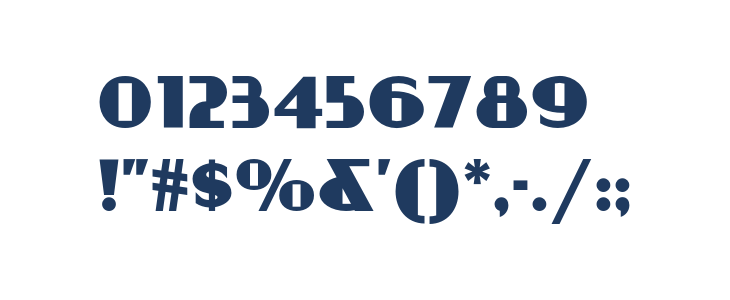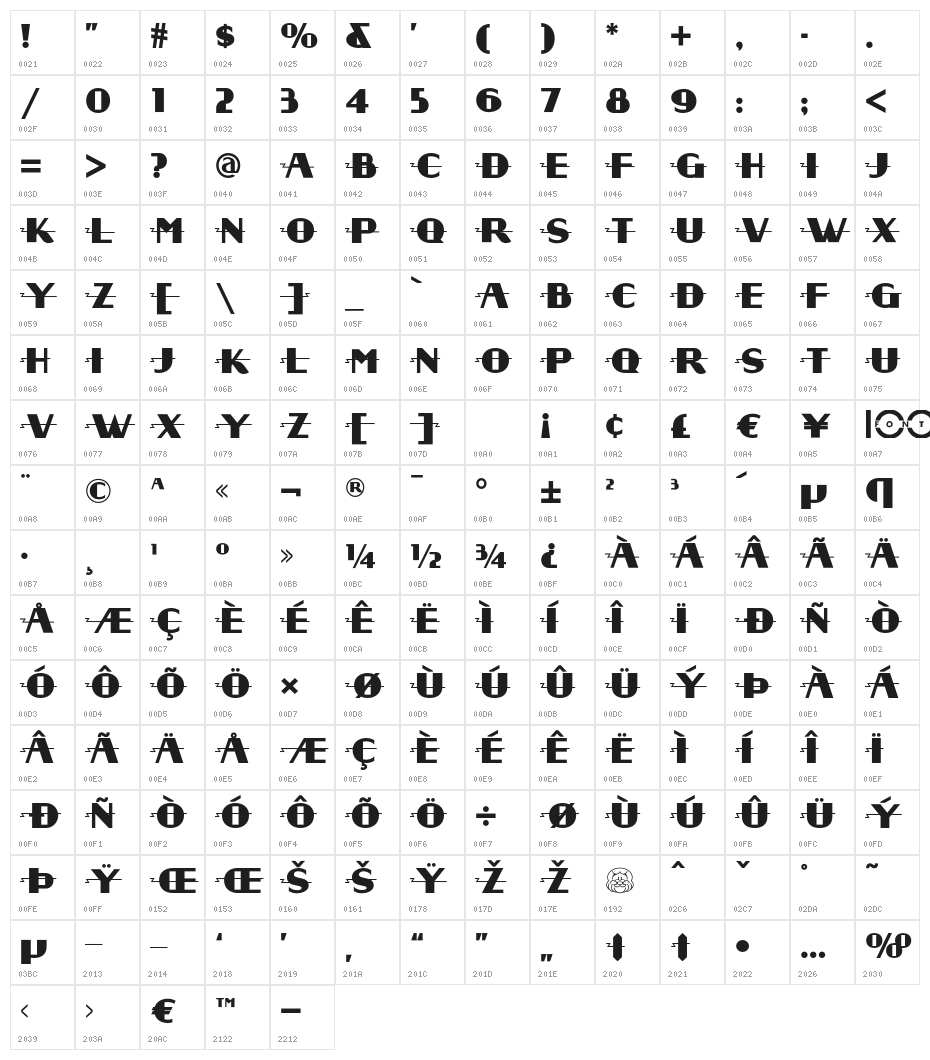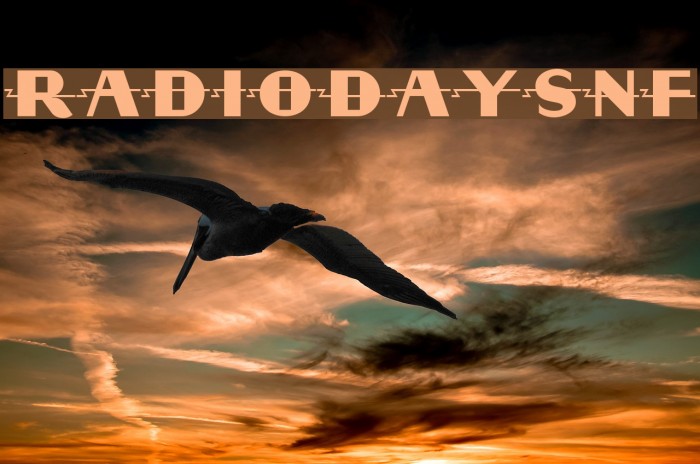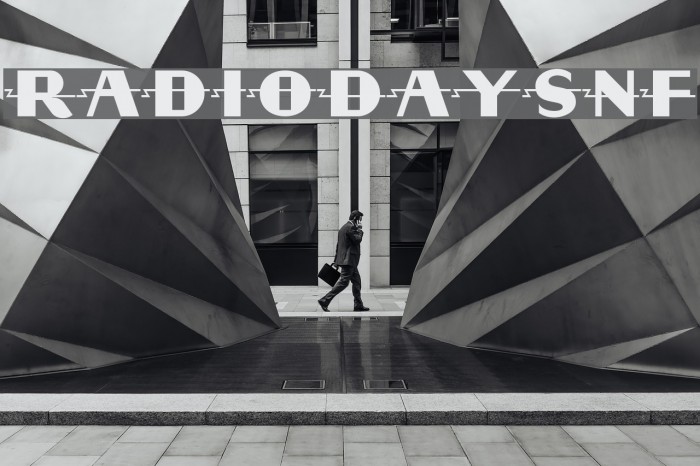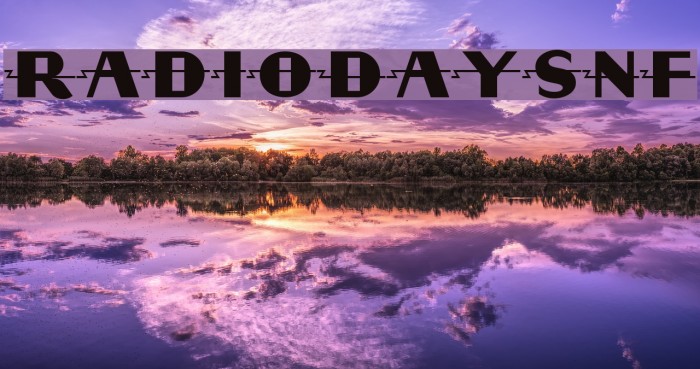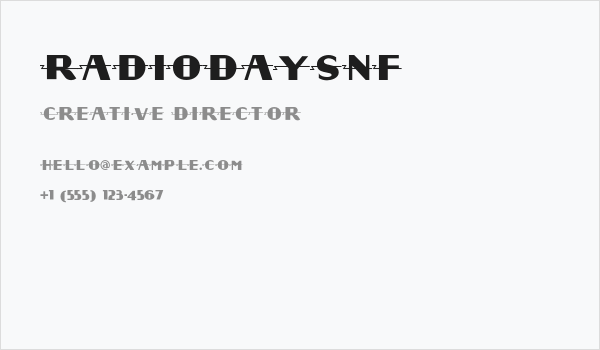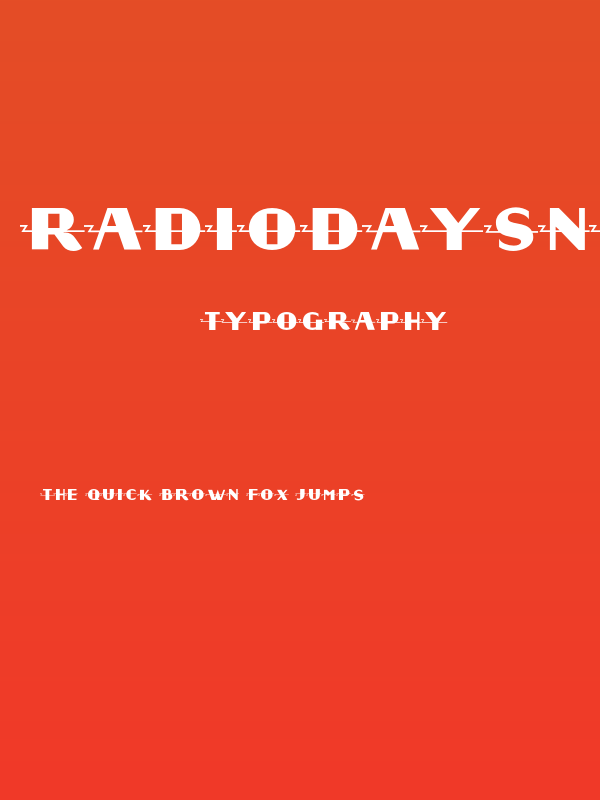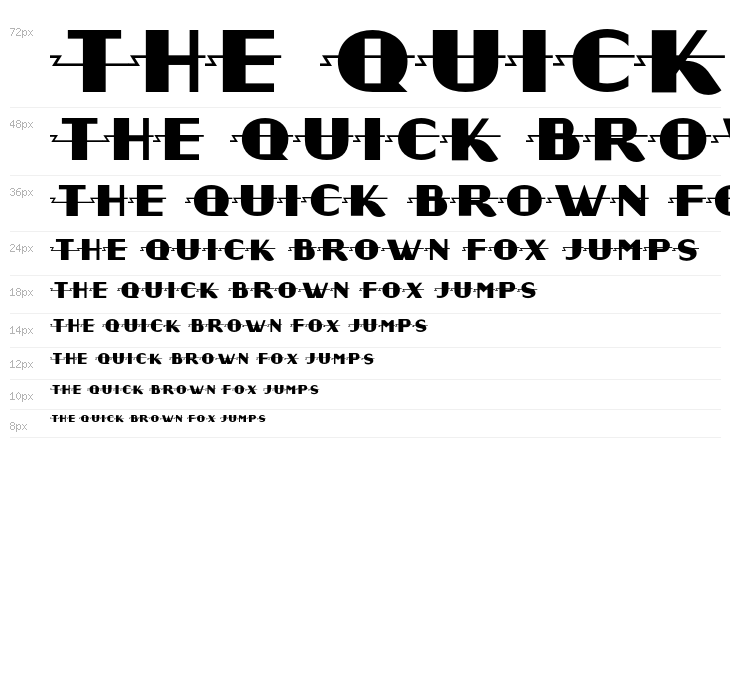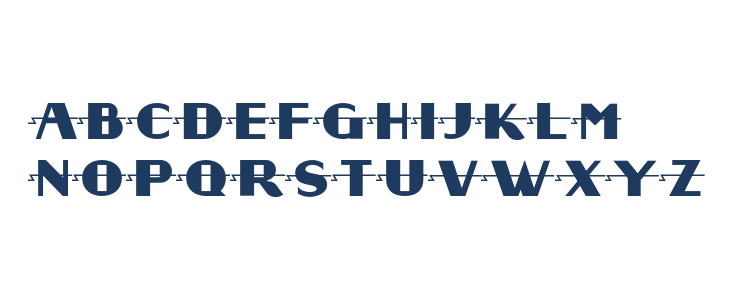
RadioDaysNF Font
RadioDaysNF Description
This font features a bold and striking design with a unique geometric style. The characters are crafted with thick, uniform strokes that create a strong visual impact. The uppercase letters are particularly prominent, with a consistent height and width that enhances readability. The numbers are equally bold, maintaining the same weight and style as the letters. Special characters are included, adding versatility to the font's use. The overall design is modern and eye-catching, making it suitable for various creative projects.